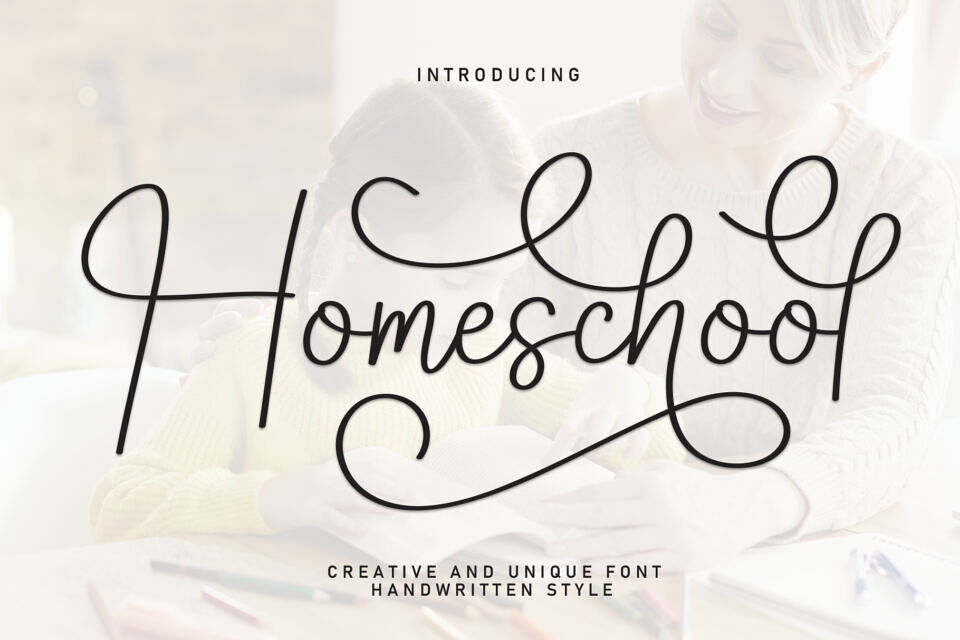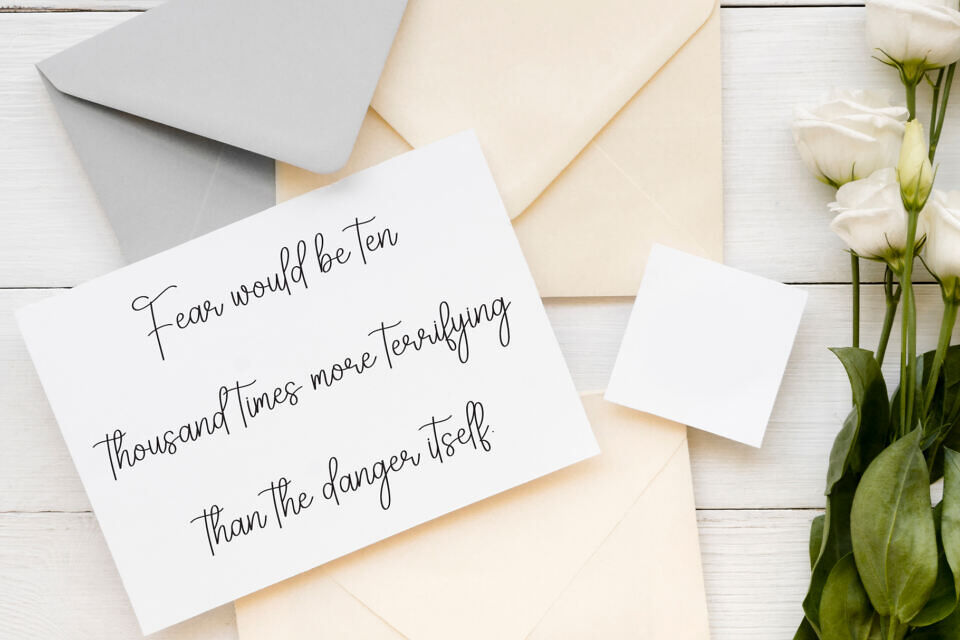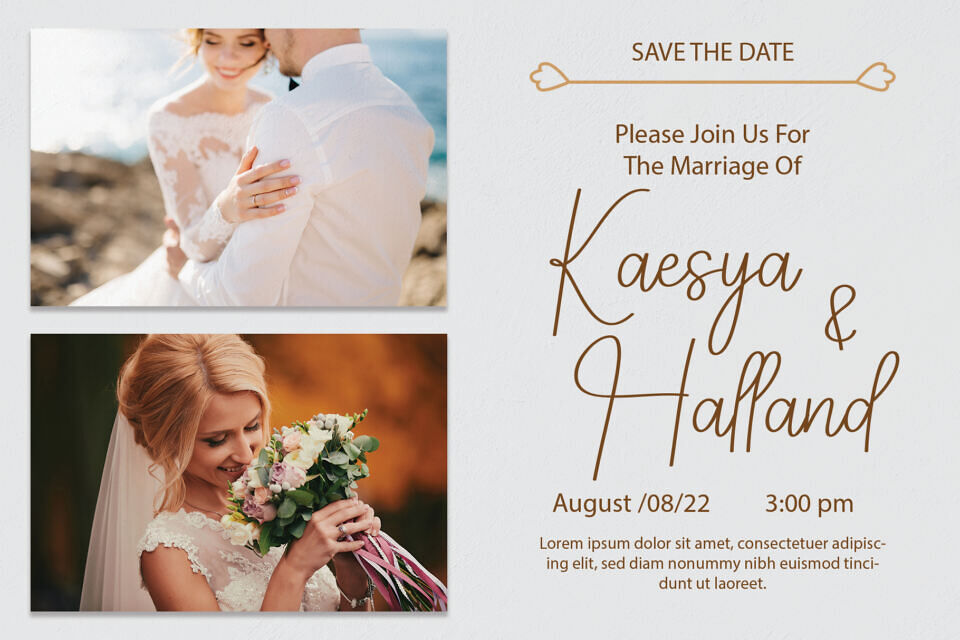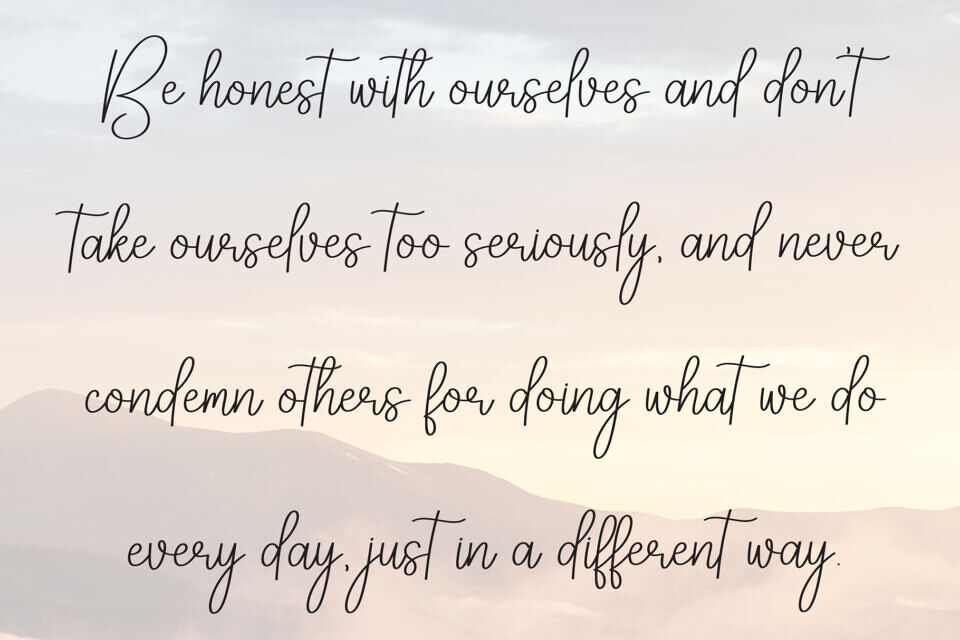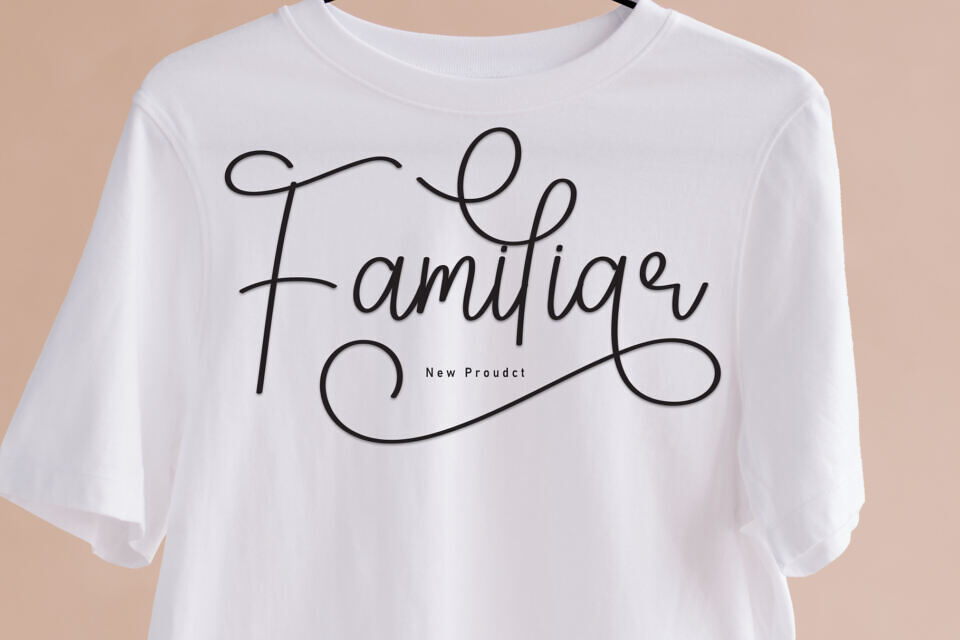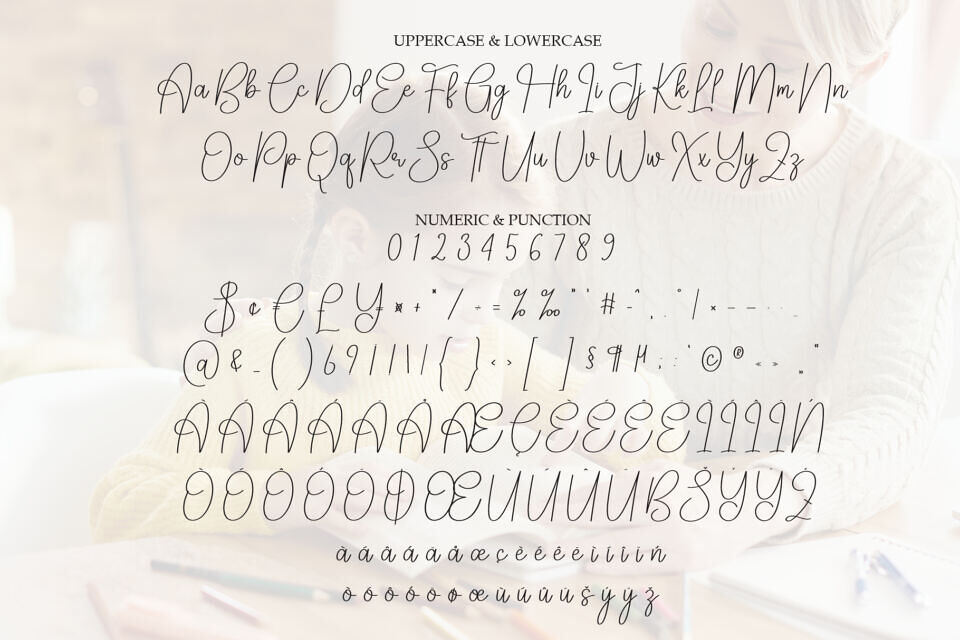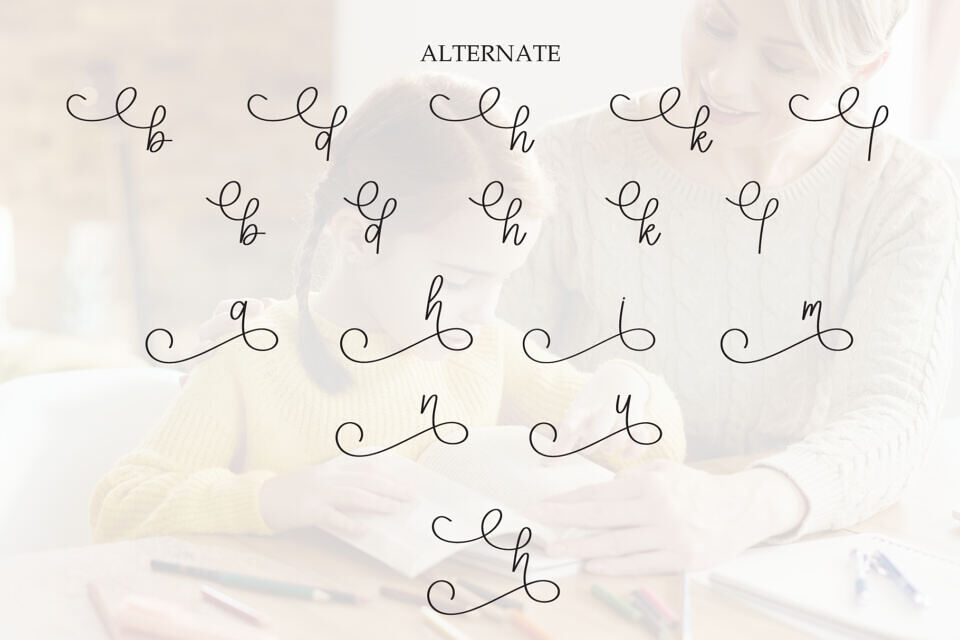
The “Homeschool” font is a beautiful, cursive-style typeface featuring elegant, flowing strokes that mimic the look of hand-written script. It is versatile and works well for a range of design projects, from educational materials to personal branding.
The font is both playful and sophisticated, with a natural, informal feel that makes it perfect for projects seeking a friendly, approachable vibe. The letterforms are smooth and easy to read, making it suitable for both titles and body text.